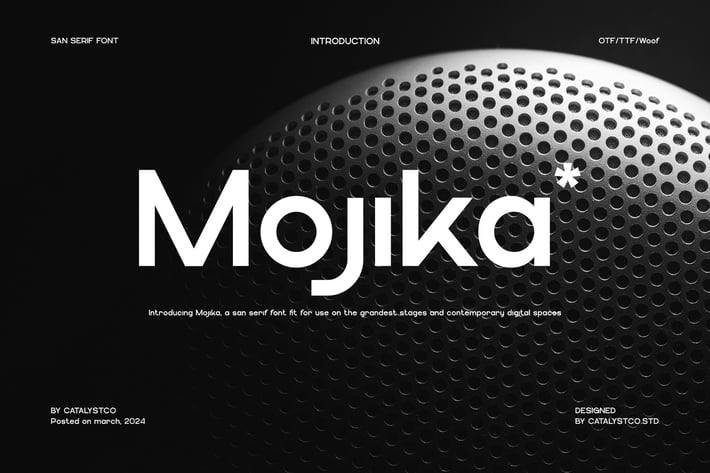
Mojika Sans Serif Font
Mojika Sans Serif Font is a bold modern sans serif font built with geometric structure and clean, minimalist aesthetics. Designed for maximum legibility and visual clarity, Mojika is perfect for technology fonts, branding, corporate design, digital platforms, and UI/UX work. The typeface works seamlessly in both print and screen media, offering a confident presence across headlines, websites, or product packaging. With its tech font energy and professional font versatility, Mojika fits well in modern design systems where clarity meets sophistication.
Main Features
Ligatures & Alternate
Numeral & Punctuations